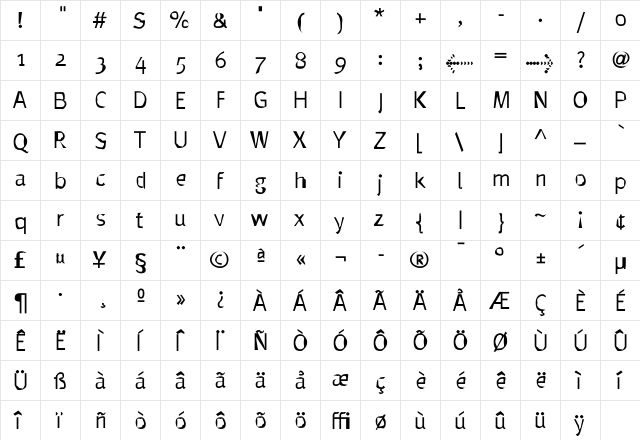
MetaPlus Light
Design Context for MetaPlus Typeface
MetaPlus takes a measured approach to typography — its balanced proportions and neutral character make it a reliable workhorse for both digital and print work. The delicate stroke weight brings airiness and refinement to layouts.